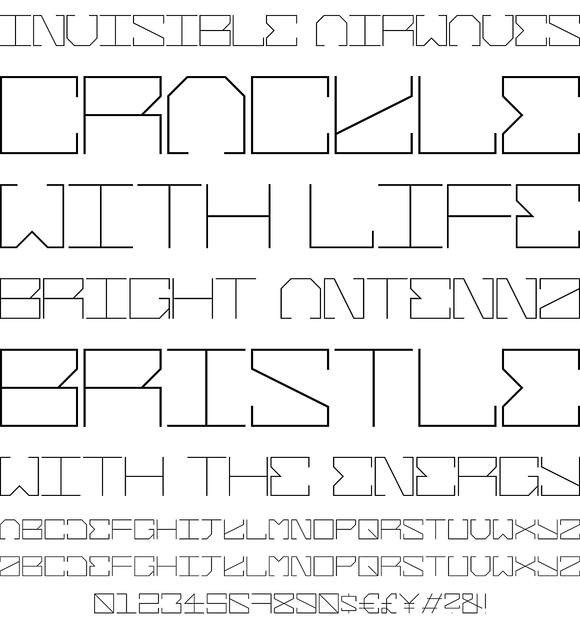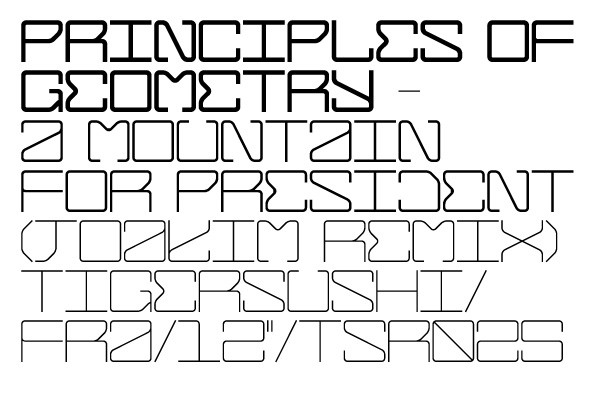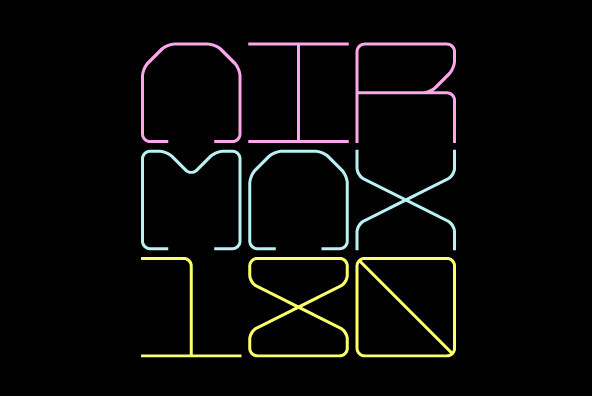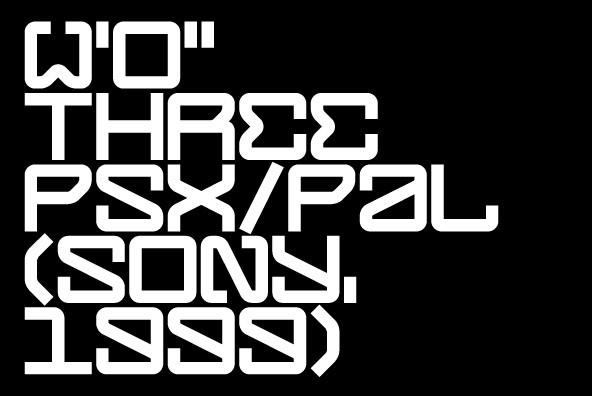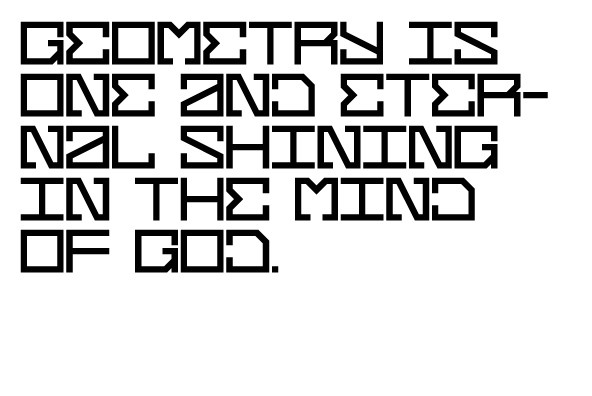
Gaia is a modern typeface family of 10 different styles. The ultimate goal was to create a typeface family where all the main characters fit in a square shape grid.